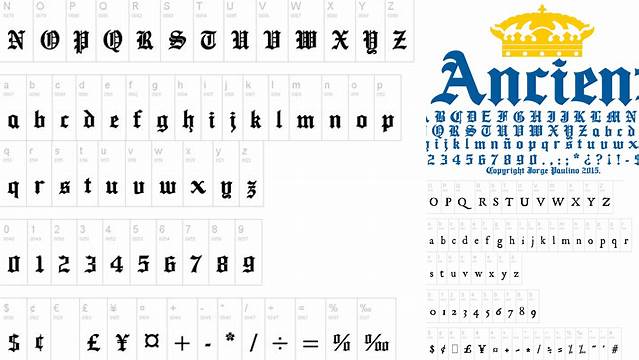
Ancient Fonts: Discover Historical Typefaces On DaFont
Hey font enthusiasts! Ever felt the urge to inject a touch of history and mystique into your designs? Well, you're in luck! Today, we're diving deep into the fascinating world of ancient fonts, specifically those hidden treasures you can discover on DaFont. DaFont, for those who might not know, is a fantastic online resource brimming with fonts of all shapes, sizes, and styles – and it's a goldmine for anyone seeking that perfect historical typeface. Finding the right ancient font can make your project truly stand out, evoking eras long past and adding a unique layer of visual storytelling. So, grab your metaphorical archaeological tools, and let's unearth some typographic gems!
Why Choose Ancient Fonts?
Ancient fonts aren't just a stylistic choice; they're a portal to the past. Using these fonts can instantly transport your audience to different historical periods, adding authenticity and depth to your work. Think about it – a website for a historical fiction novel, a poster for a medieval-themed event, or even a logo for a company with a heritage twist – ancient fonts can be the secret ingredient that elevates your design. But why else should you consider these relics of typography? Let's delve deeper into the benefits:
- Evoking a Sense of History and Authenticity: In the realm of design, authenticity is a prized commodity. Ancient fonts possess an innate ability to evoke a sense of history, transporting viewers back in time with their unique letterforms and stylistic nuances. By incorporating these fonts into your projects, you can instantly imbue them with a sense of historical accuracy and believability, making them resonate more deeply with your target audience. Whether you're designing a book cover for a historical novel, a website for a museum exhibit, or a marketing campaign for a heritage brand, ancient fonts can provide the visual cues necessary to capture the essence of a bygone era.
- Adding a Unique and Timeless Aesthetic: In a world saturated with modern typography, ancient fonts offer a refreshing departure from the ordinary. Their distinctive letterforms and calligraphic flourishes can add a touch of elegance and sophistication to your designs, setting them apart from the crowd. Unlike trendy fonts that come and go with the seasons, ancient fonts possess a timeless quality that transcends fleeting fads. Their classic appeal makes them a versatile choice for a wide range of projects, from branding and advertising to editorial design and web layouts. By embracing the beauty of ancient fonts, you can create designs that are both visually striking and enduringly stylish.
- Enhancing Visual Storytelling: Typography plays a crucial role in visual storytelling, conveying not only the literal meaning of words but also their emotional and cultural context. Ancient fonts can be particularly effective in this regard, adding layers of meaning and symbolism to your designs. For example, a font inspired by ancient Roman inscriptions might be used to evoke a sense of grandeur and authority, while a font based on medieval calligraphy could convey a feeling of mystery and intrigue. By carefully selecting ancient fonts that align with the narrative and thematic elements of your project, you can enhance its overall impact and create a more immersive experience for your audience.
In short, ancient fonts are more than just pretty letters; they are powerful tools for communication and expression. They can help you tell compelling stories, create memorable brands, and connect with your audience on a deeper level. So, if you're looking to add a touch of history and sophistication to your designs, don't overlook the timeless appeal of ancient fonts.
- Using DaFont's Category Filters: DaFont's category system is your best friend when searching for specific types of fonts. To find ancient fonts, head to the "Fancy" section and then explore subcategories like "Old School," "Medieval," "Gothic," or even specific cultural categories like "Ancient Greek" or "Ancient Egyptian." These categories act as well-defined pathways, leading you directly to collections of fonts that embody the aesthetic characteristics of the historical periods you're interested in. By utilizing these filters, you can efficiently narrow down your search and discover a diverse range of fonts that capture the essence of different ancient cultures and eras. Don't hesitate to experiment with various combinations of categories to uncover hidden gems and unexpected stylistic variations. The beauty of DaFont's categorization lies in its ability to guide you through its vast collection, ensuring that your quest for the perfect ancient font is both productive and enjoyable.
- Leveraging the Search Bar with Keywords: Sometimes, you might have a specific style or historical period in mind. In these cases, DaFont's search bar is your trusty tool. Try keywords like "Roman," "Greek," "Runes," "Cuneiform," or even the name of a specific historical script. The search bar functions as a direct line to the font styles you envision, allowing you to quickly locate fonts that align with your creative vision. By using a combination of broad and specific keywords, you can refine your search and uncover a wealth of options that might not be immediately apparent through category browsing alone. Remember to experiment with different search terms and variations to explore the full spectrum of ancient fonts available on DaFont. You might be surprised at the diverse range of options that await you with a little keyword ingenuity.
- Exploring Font Tags for Specific Styles: DaFont also utilizes a tagging system that can be incredibly helpful. Fonts are often tagged with descriptive terms like “calligraphy,” “decorative,” or “historical,” allowing you to filter results based on specific characteristics. These tags act as micro-filters, enabling you to pinpoint fonts that possess the precise attributes you're seeking. For instance, if you're looking for an ancient font with a calligraphic feel, you can filter your search by the “calligraphy” tag to narrow down the results. Similarly, if you're interested in fonts that showcase decorative elements, you can leverage the “decorative” tag to discover options that feature intricate designs and embellishments. By combining tags with other search methods, such as category filtering and keyword searches, you can create a highly targeted approach to your font exploration, ensuring that you find the perfect ancient font to complement your project.
Remember to use these fonts wisely, pairing them with modern typefaces, using them sparingly, and always considering the historical context. By following these tips, you can harness the power of ancient fonts to create designs that are both visually stunning and historically resonant. So, embrace the timeless appeal of ancient fonts, let your creativity flow, and transport your audience to eras long past! The world of typography is vast and exciting, and the possibilities are truly endless when you combine the wisdom of the ancients with the innovation of modern design. Happy font hunting, everyone!